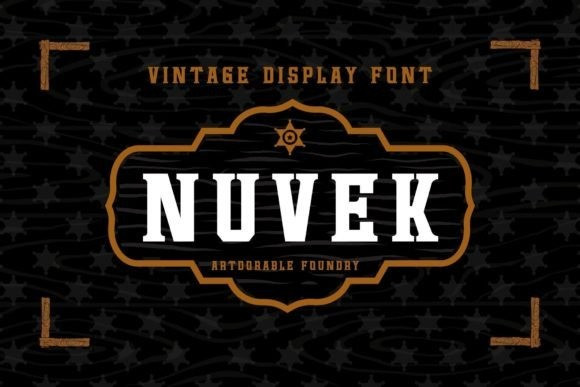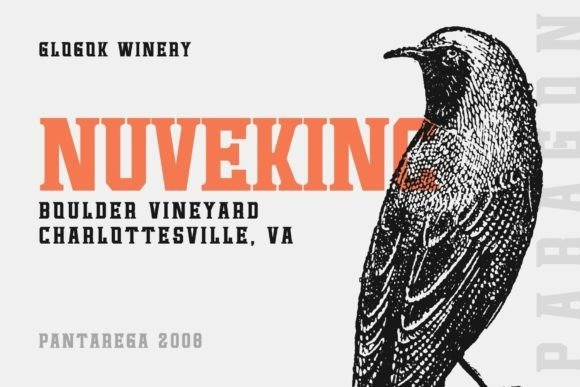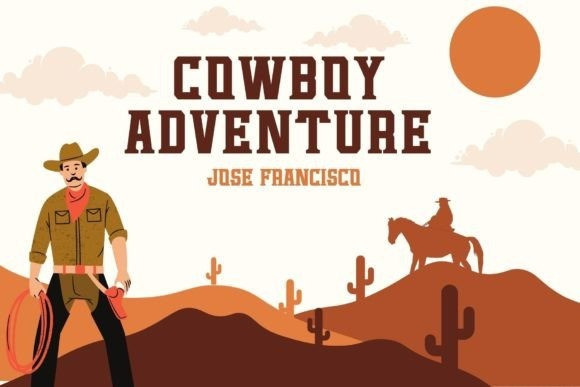
Nuvek Font
Nuvek is a cool and unique display font. Fall in love with its incredibly versatile style and use it to create gorgeous wedding invitations, beautiful stationary art, eye-catching social media posts, and much more!